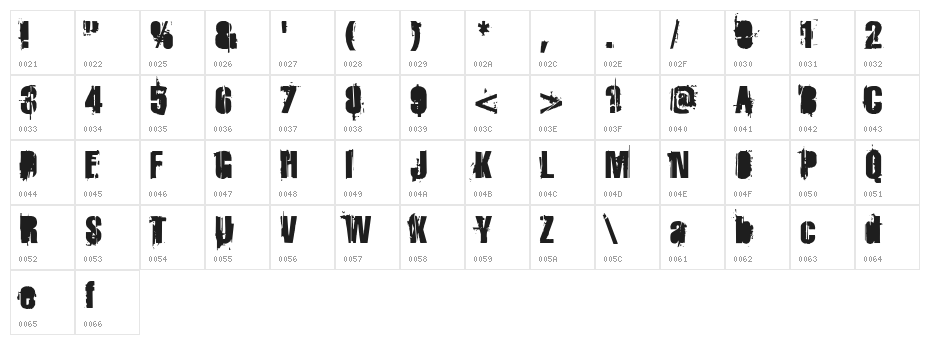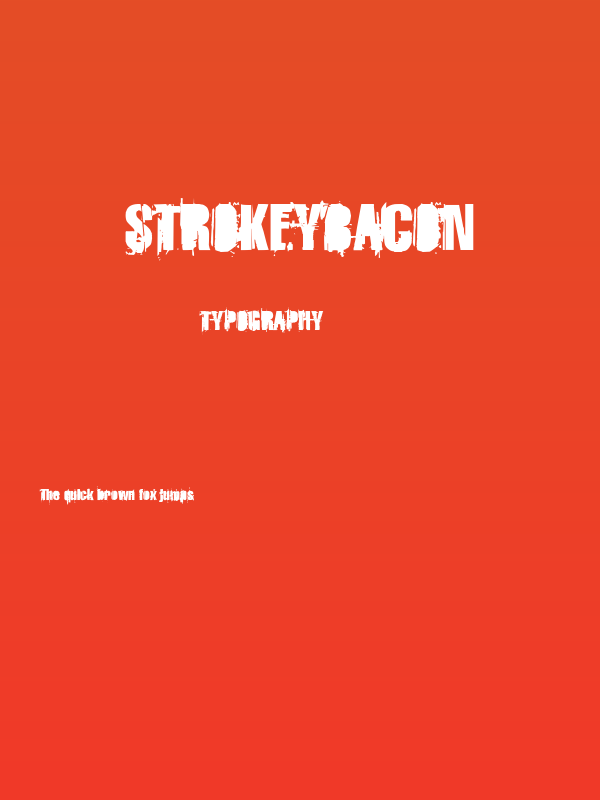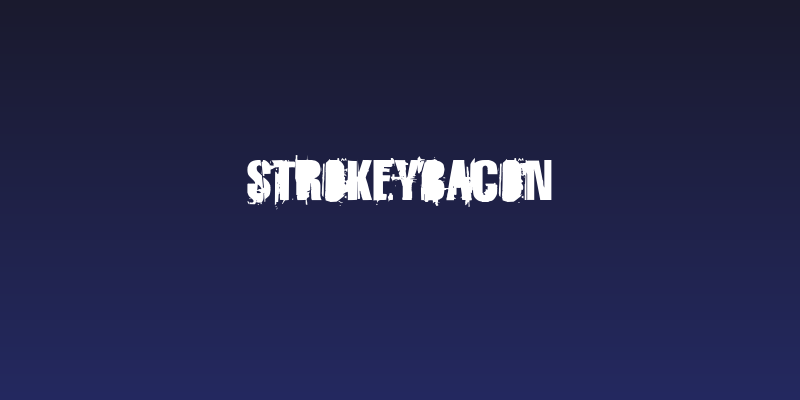
StrokeyBacon Font
StrokeyBacon Description
This font is a bold, distressed typeface with a grunge aesthetic. The characters are heavily textured, giving the appearance of being worn or eroded. Each letter and number is uniquely distressed, adding a sense of chaos and ruggedness. The uppercase and lowercase letters maintain a consistent style, with jagged edges and irregular shapes. The numbers and special characters follow the same distressed pattern, ensuring a cohesive look across all elements. This font's boldness and texture make it stand out, ideal for projects that require a strong, edgy visual impact.
| Overall Style | Grunge, Edgy |
| Use Case | Headlines, Posters, Album Covers |
| Proposed Projects | Ideal for music album covers, posters, urban-themed designs, and any project needing a gritty, bold look. |